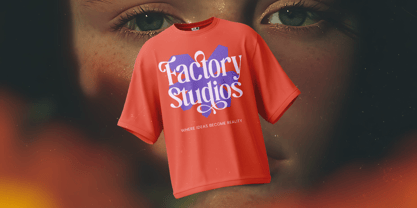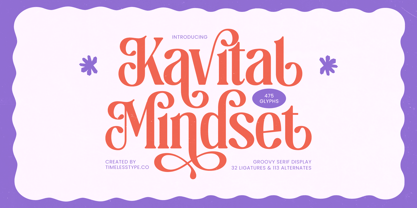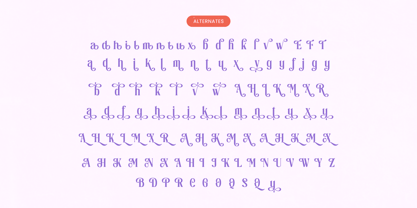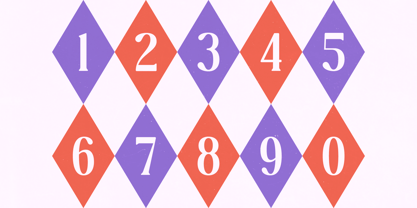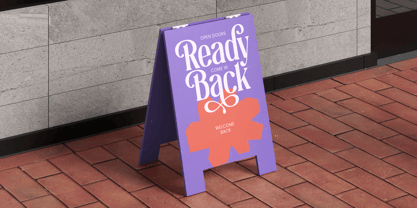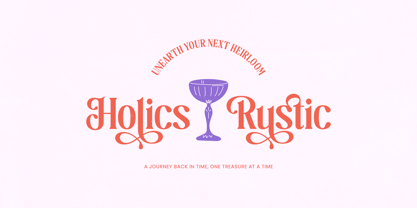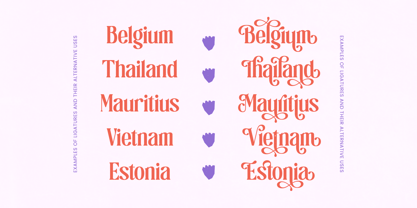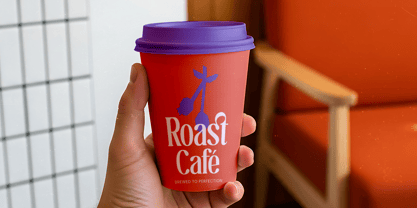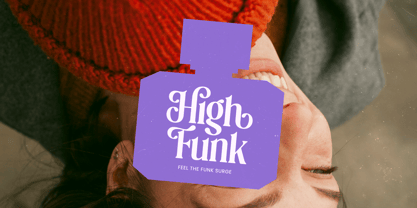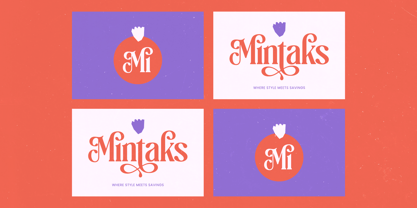
Kavital Mindset
La familia tipográfica Kavital Mindset fue diseñada por Heru Utama Putra y publicada por Timelesstype Studio. Kavital Mindset contiene 2 estilos y opciones de paquete familiar. Más información sobre esta familia
Kavital Mindset - Groovy Serif Display , Kavital Mindset is a bold groovy serif display font designed with expressive swashes, smooth curves, and charming retro detailing that brings personality and flair to modern creative projects. Featuring 475 glyphs, 32 ligatures, and 113 alternates, this typeface offers extensive customization for branding, posters, editorial layouts, packaging, social media graphics, and standout logotypes. Its playful yet refined structure blends vintage inspiration with modern aesthetics, making Kavital Mindset an ideal choice for designers seeking a stylish display serif with high versatility and strong visual character.